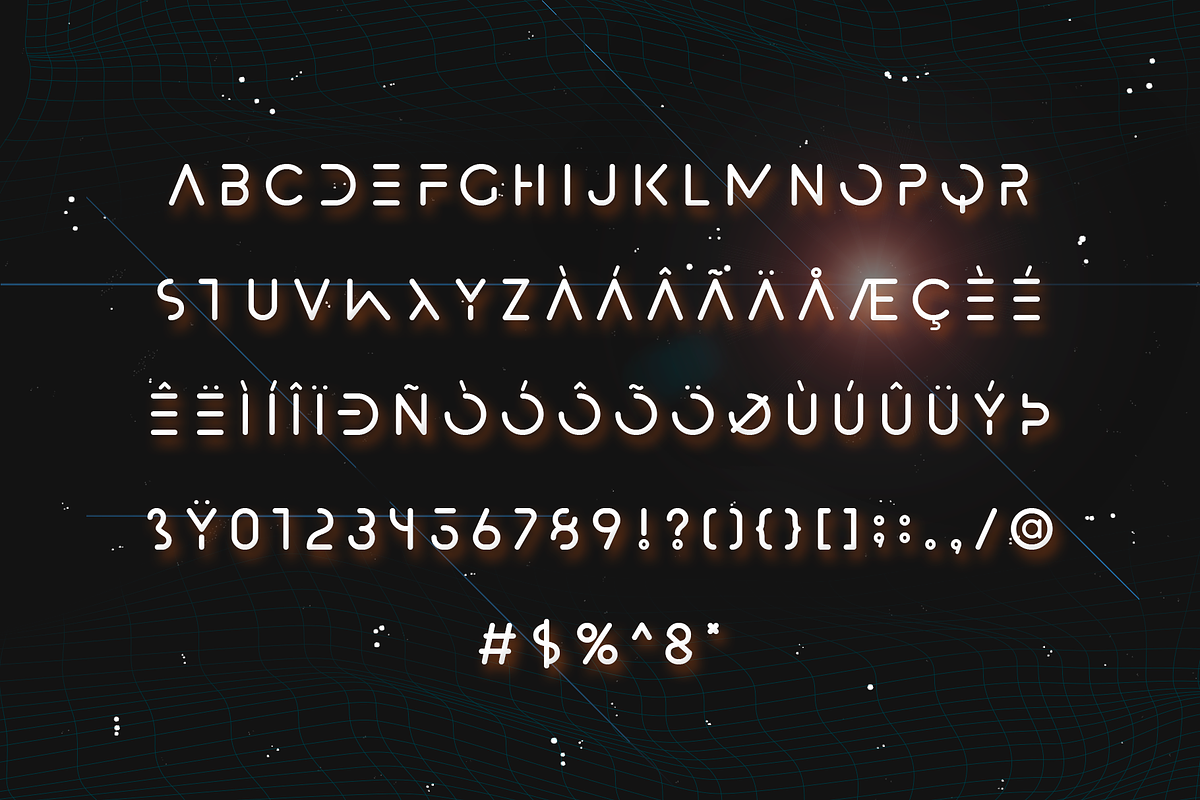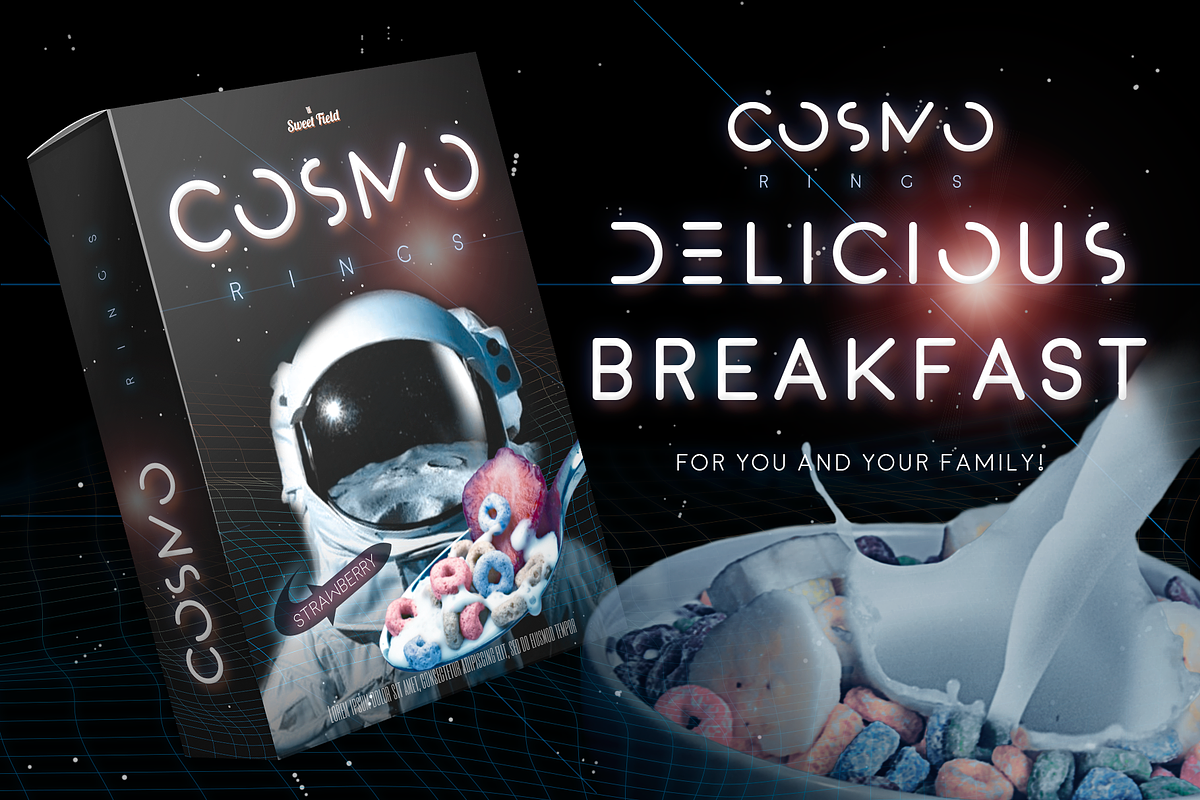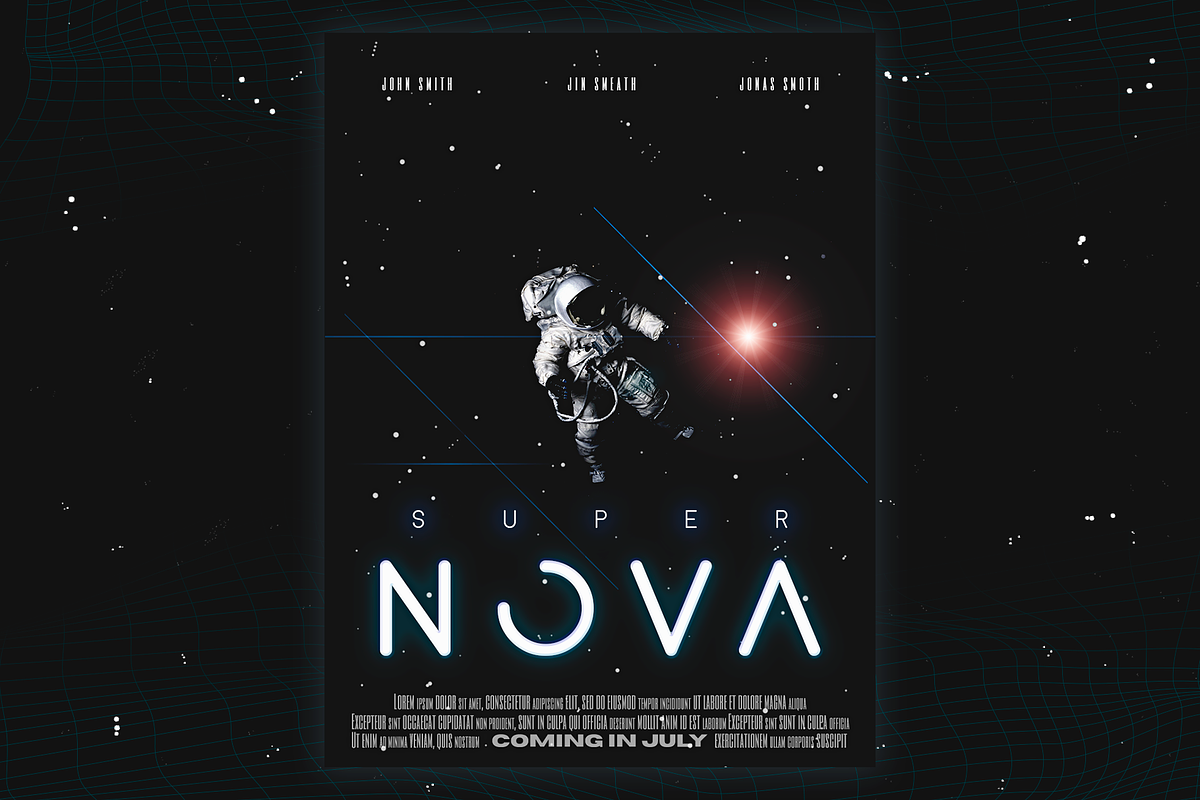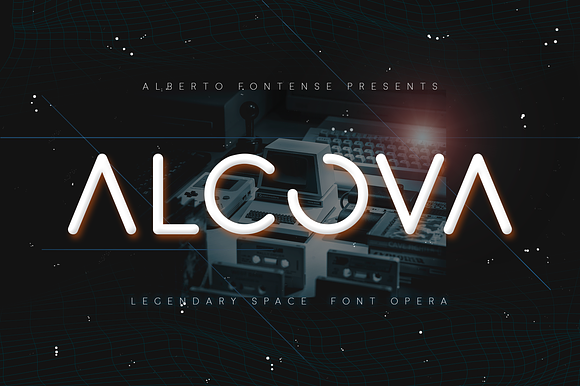
Alcova - Futuristic Cosmic Font
to infinity... and beyond! cosmo-vibes decorative font
Alcova - Futuristic Cosmic Font by Alberto Fontense fits naturally into Branding, posters, packaging, typography.